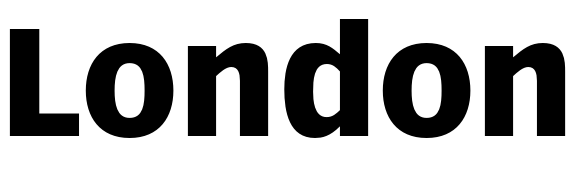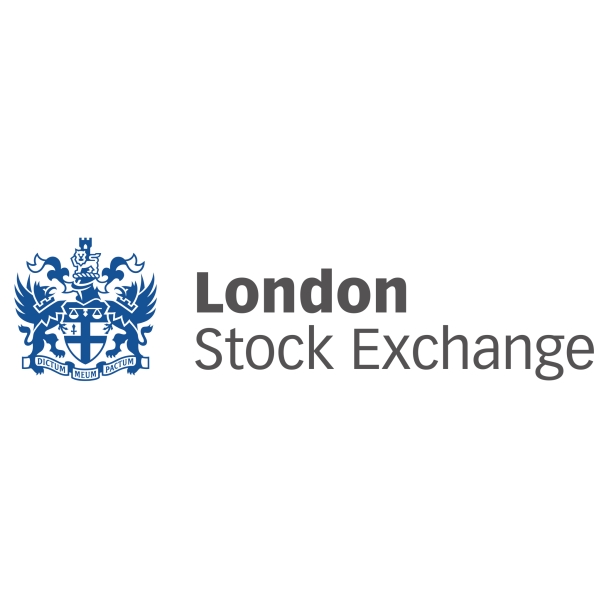
London Stock Exchange Font
FinanceLondon Stock Exchange is a stock exchange located in London, England. It is one of the world's largest stock exchanges and home to a diverse range of companies from different industries.
The London Stock Exchange logo most likely features the Vectora typeface, a modern sans-serif designed by Adrian Frutiger in 1991 for Linotype-Hell. The wordmark uses Vectora Black for "London" and Vectora Roman for "Stock Exchange".